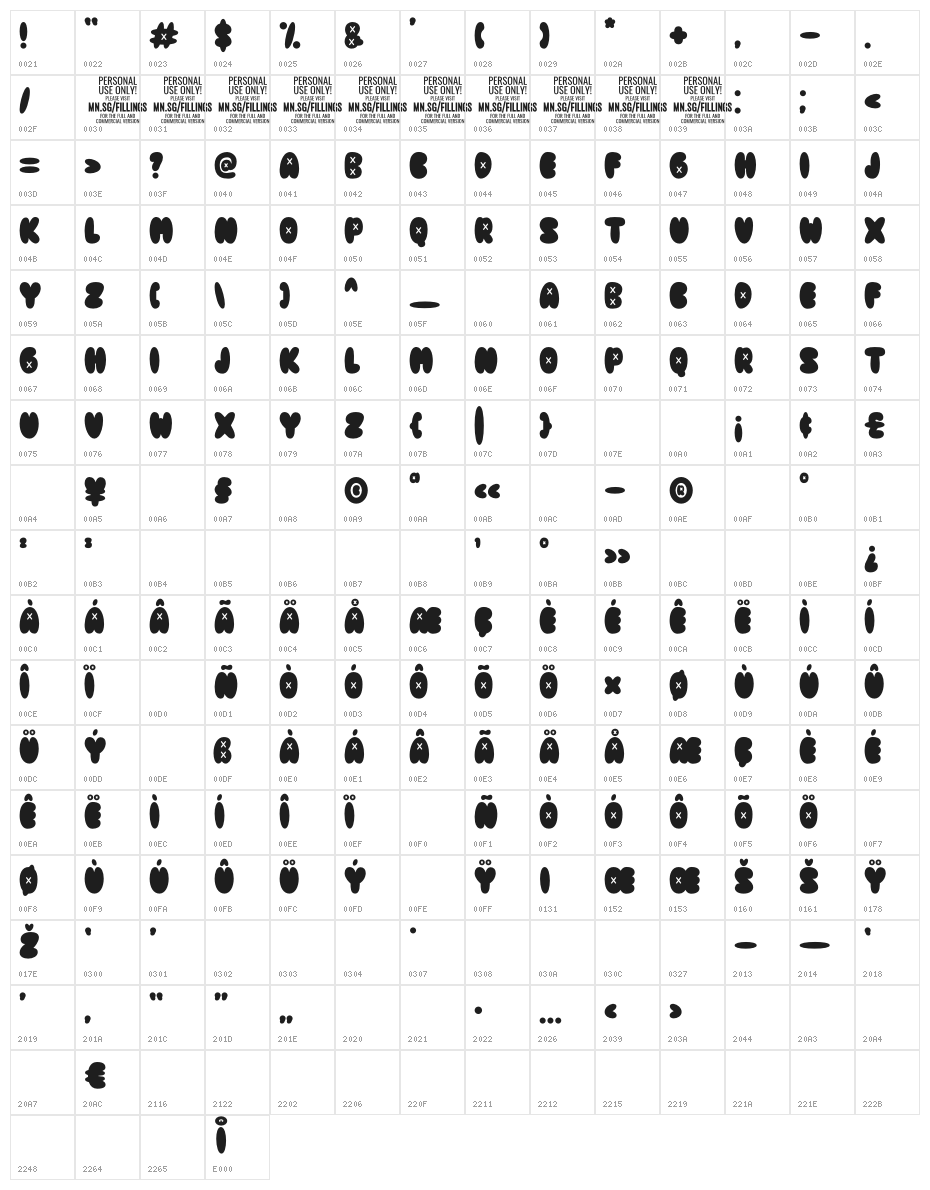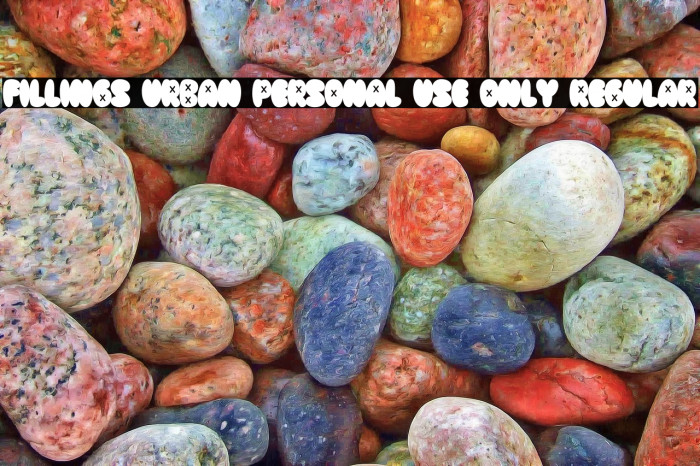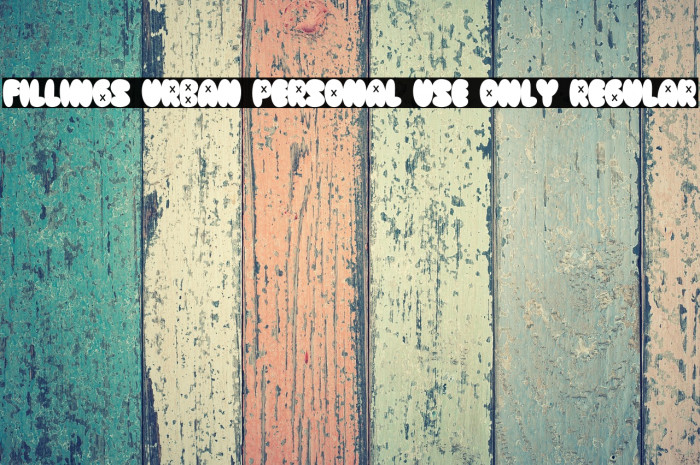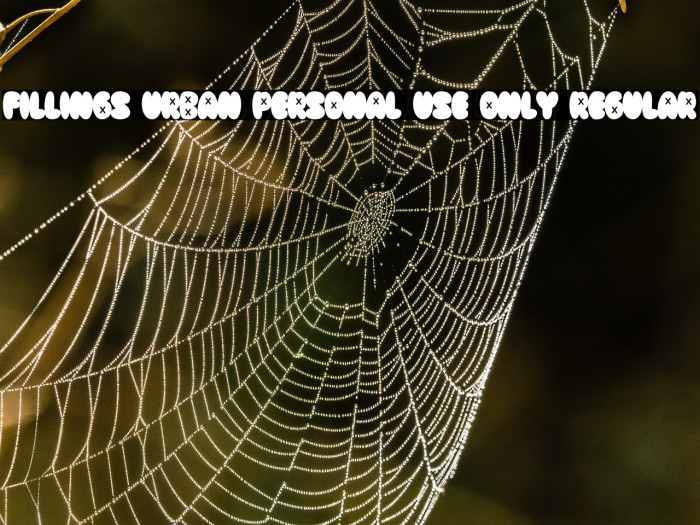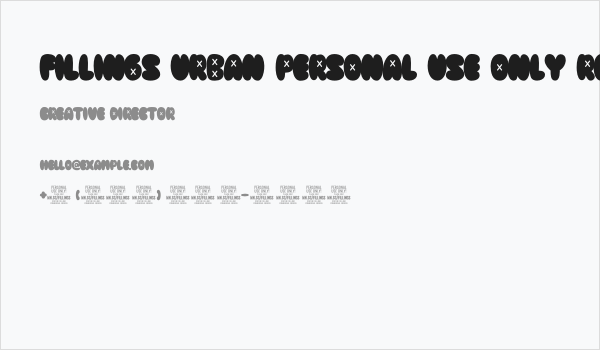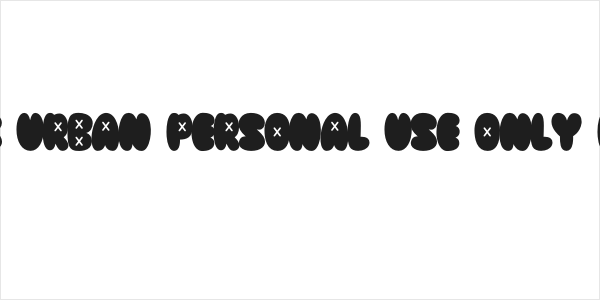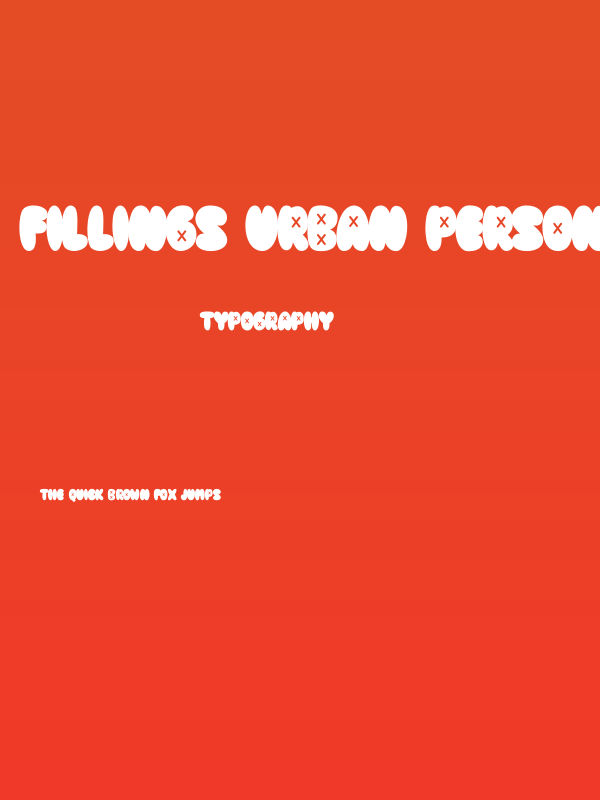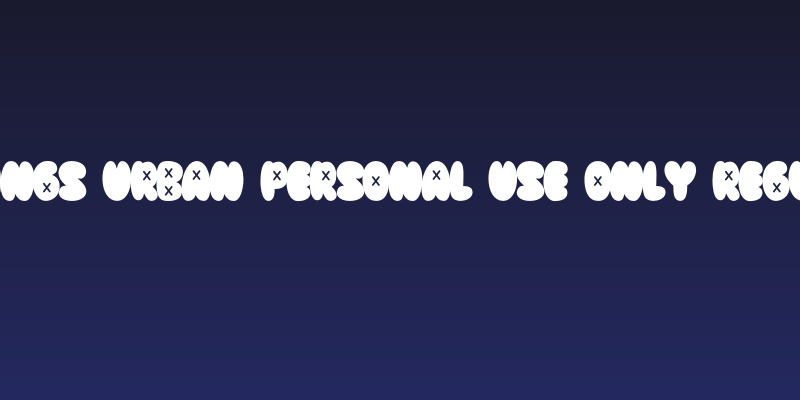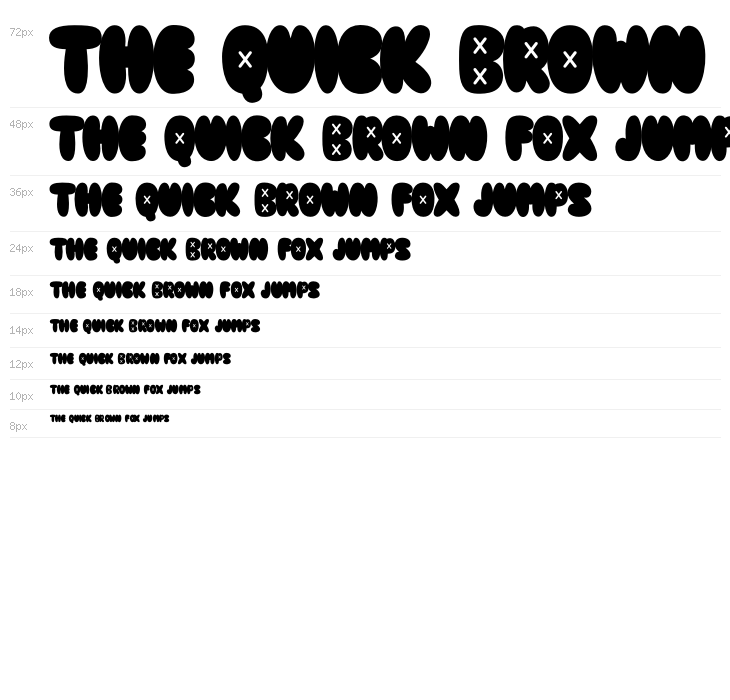
Fillings Urban PERSONAL USE ONLY Regular Font
Fillings Urban PERSONAL USE ONLY Regular Description
This font features a bold and playful style with thick, rounded characters that create a sense of fun and creativity. Each letter is filled with solid black, and some characters include unique design elements like crosses, adding a distinctive touch. The overall appearance is chunky and eye-catching, making it ideal for designs that require a strong visual impact. The font maintains a consistent weight across all characters, ensuring uniformity and balance in text compositions. Its whimsical nature makes it suitable for projects that aim to convey a sense of joy and energy.
| Overall Style | Playful, Creative |
| Proposed Projects | Ideal for children's books, playful branding, event posters, and creative social media graphics. |